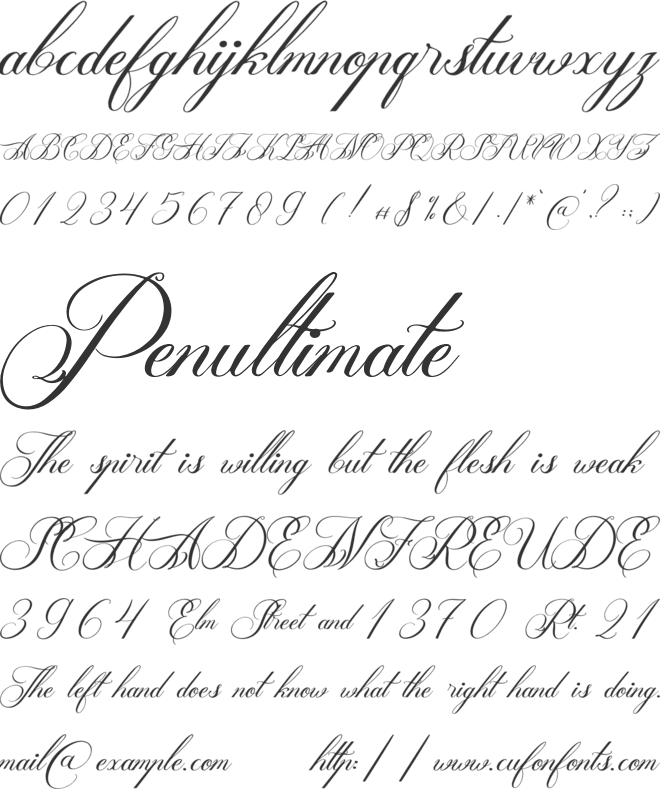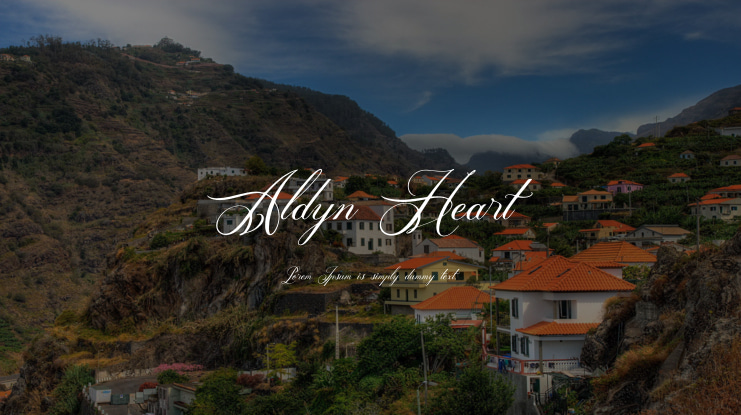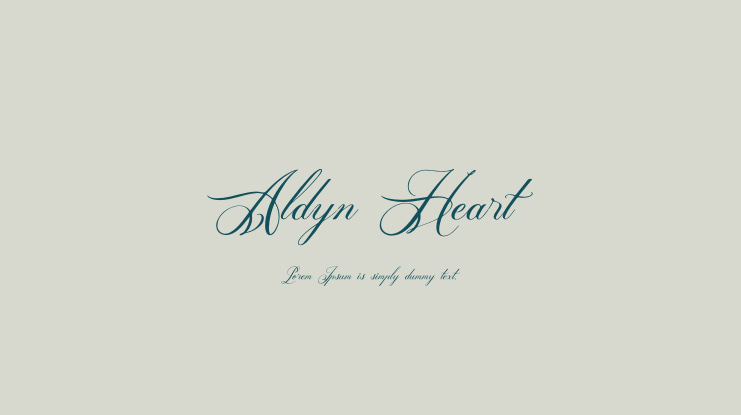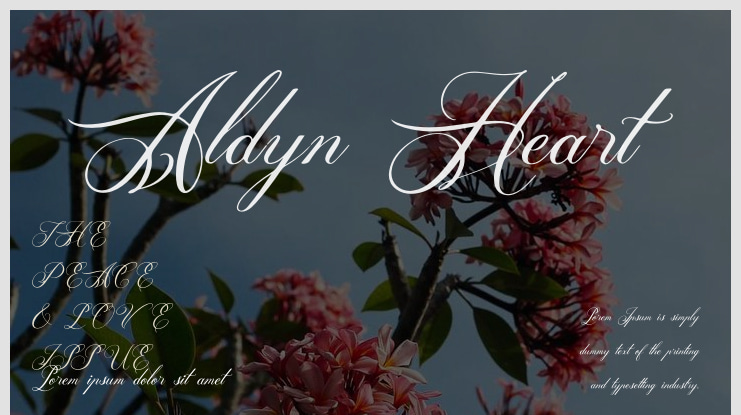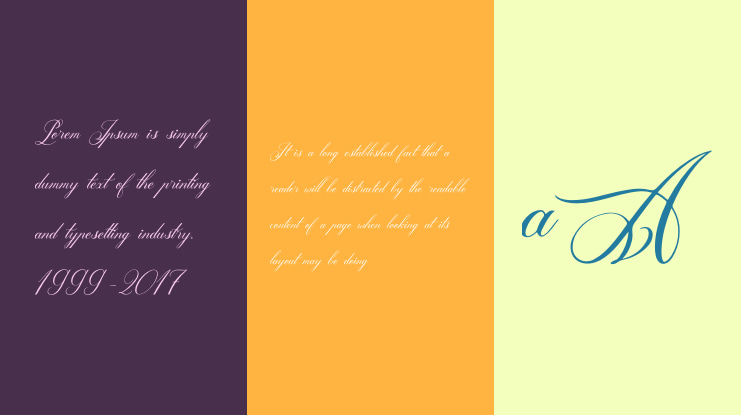
Dede Nugraha
Aldyn Heart | Calligraphy Font is ideal for various projects such as logos, branding, homeware designs, product packaging, quotes, posters, t-shirts, and more. It adds a beautiful script touch to any project. By using this font, you agree to the following terms: - This demo font is for PERSONAL USE only. No COMMERCIAL USE is permitted. - Purchase the full version and commercial license at: [https://denustudios.com/aldyn-heart-calligraphy-font/](https://denustudios.com/aldyn-heart-calligraphy-font/) - For Corporate use, a Corporate license is required. - For custom license inquiries, contact us at [https://denustudios.com/contact/](https://denustudios.com/contact/) - Donations are appreciated via PayPal at [https://www.paypal.com/paypalme/denustudios](https://www.paypal.com/paypalme/denustudios) Explore more fonts at our store: [https://denustudios.com/](https://denustudios.com/) Thank you.